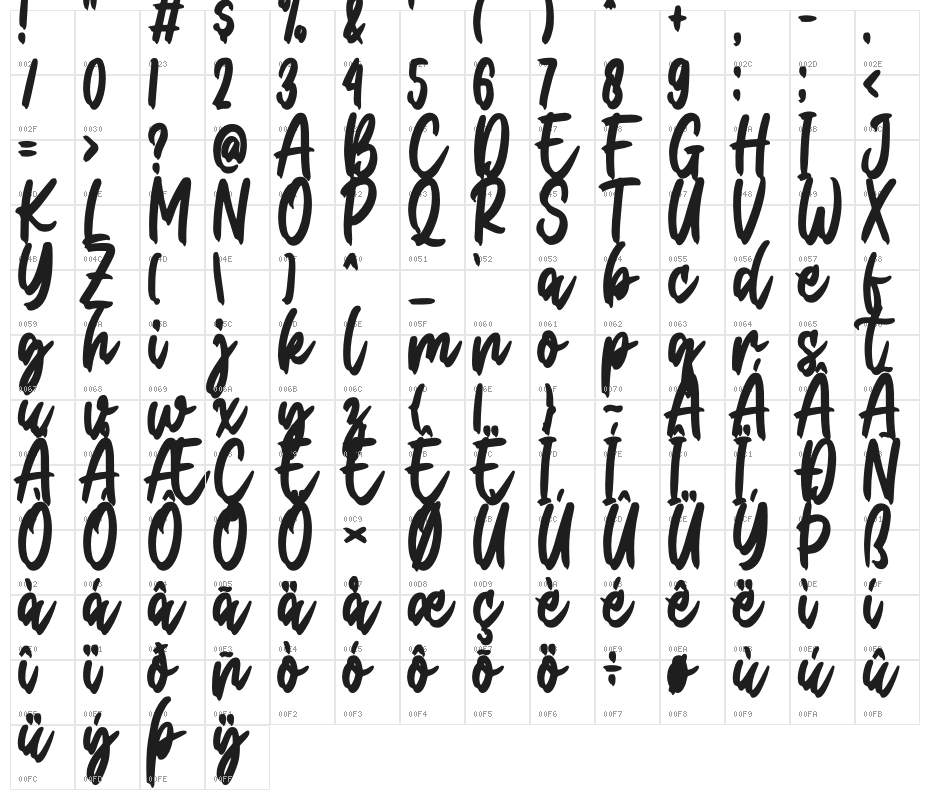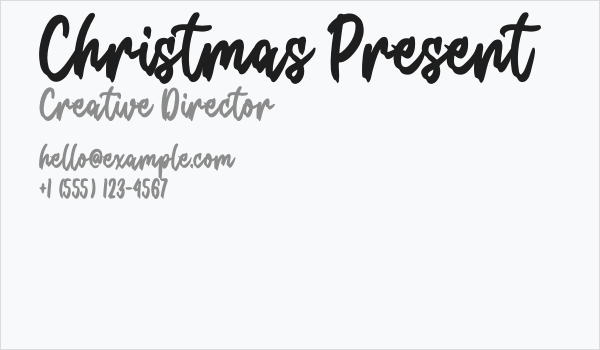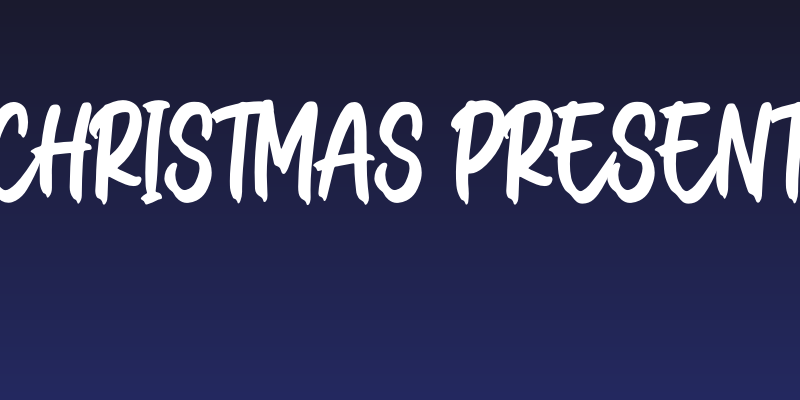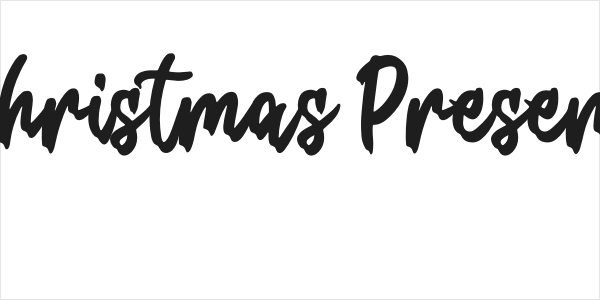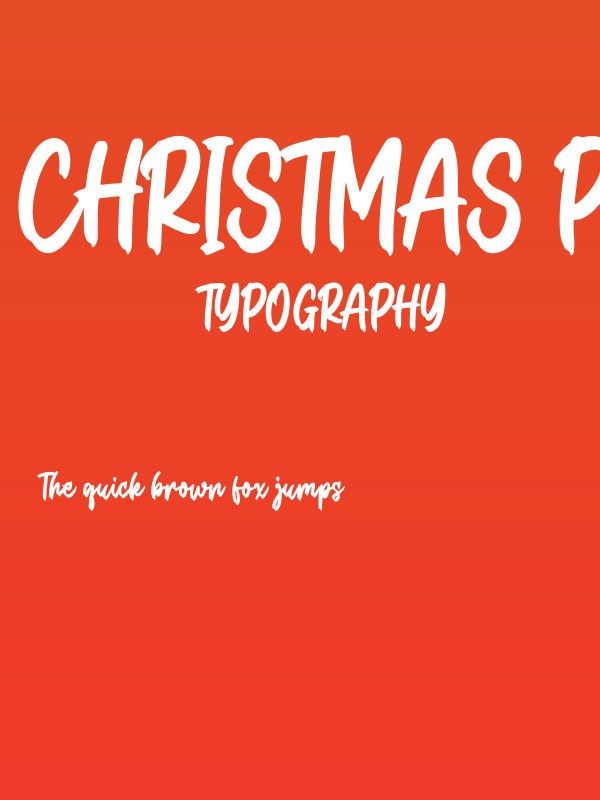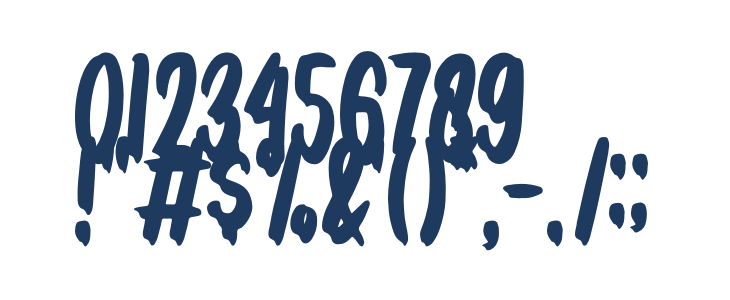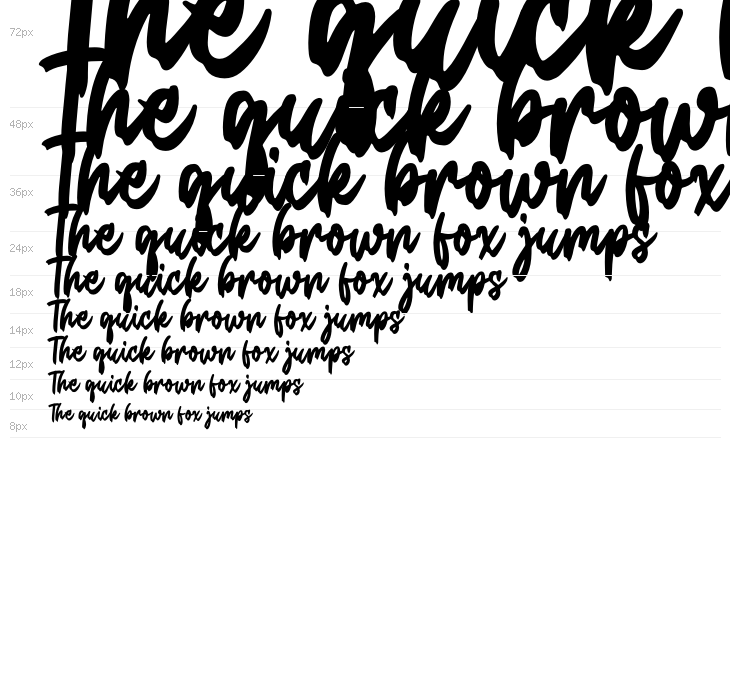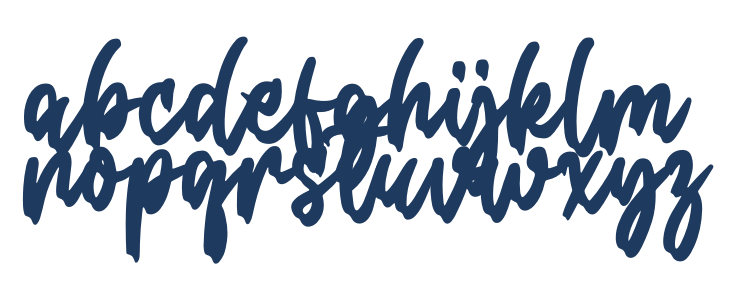
Christmas Present Font
Christmas Present Description
This font exudes a lively and festive spirit, characterized by its bold and flowing script style. The letters are connected in a cursive manner, giving it a handwritten appearance that is both dynamic and elegant. The strokes are thick and consistent, providing a strong visual impact. This font is perfect for creating a sense of warmth and celebration, making it ideal for holiday-themed projects. The uppercase and lowercase letters maintain a cohesive style, while the numerals and special characters complement the overall design. Its playful yet sophisticated look makes it versatile for various creative applications.
| Proposed Projects | Ideal for holiday cards, festive invitations, branding, and decorative signage. |